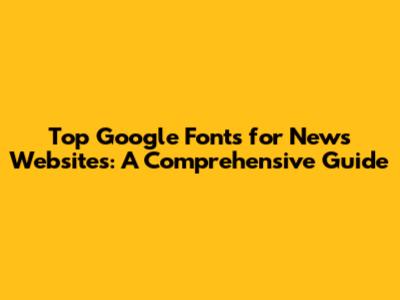
- Readability: Roboto is designed for clear readability, even at small sizes. This is crucial for news websites where the content is the star.
- Versatility: It comes in various weights and styles, giving you flexibility in your design. You can use it for headlines, body text, and everything in between.
- Accessibility: Roboto is highly accessible, meaning it's easy for people with visual impairments to read. This is a must-have for any website that wants to be inclusive.
- Neutral Appearance: Open Sans is neutral enough to complement any design style. It doesn’t steal the show; it just makes your content shine.
- Great for Headlines and Body Text: Open Sans works equally well for headlines and body text, providing a cohesive look across your site.
- Balanced Design: Lato offers a balance between warmth and professionalism. This makes it perfect for a news website that wants to be both informative and approachable.
- Excellent Readability: It's designed for comfort, making it easy to read long articles without straining your eyes.
- Stylish and Modern: Lato looks great and keeps up with modern design trends.
- Classic Look: Merriweather has a classic serif look, which can add a touch of authority to your website.
- Readability: It's designed to be highly readable on screens, so your readers won’t have any issues. It's a great option for body text.
- Versatile: It pairs well with many sans-serif fonts, giving you design flexibility.
- Eye-Catching Headlines: Montserrat is perfect for drawing attention to headlines, keeping your content organized and visually appealing.
- Clean and Modern: It’s a versatile font that can easily be incorporated into any design, giving your site a modern look.
- Excellent Pairing: It pairs well with many body text fonts, providing a cohesive feel for your website.
- Clear Readability: Designed for screen use, it's perfect for delivering clear information in articles.
- Good for Body Text: It works well as body text, keeping your readers' attention without straining their eyes.
- Professional Look: Gives your website a clean, professional appearance. This is ideal for building trust with your audience.
Hey everyone! Choosing the right fonts for your news website is super important, right? It's like picking the perfect outfit – it needs to look good and be easy to read. Since we're all about making things look awesome and function flawlessly, we are going to dive deep into the best Google Fonts for news websites. We'll cover everything from readability to style, so your site not only looks professional but also keeps your readers glued to the screen. Let's get started!
Why Font Choice Matters for News Websites
Alright, let's get real for a sec. Why should you even care about fonts? Well, font choice can make or break your website's success, especially for news websites. Think about it: readers are coming to your site to get informed. If your text is a jumbled mess, or the font is hard on the eyes, they're bouncing faster than you can say 'breaking news.' Seriously, first impressions count. A well-chosen font makes your site look trustworthy and professional, which is something every news site needs.
The Importance of Readability
Readability is the name of the game. You want your content to be easily scannable and digestible. A font that’s too fancy or too thin might look cool, but it's a nightmare for long-form articles. News websites are all about long articles, and they're meant to be read, so you need a font that keeps your readers engaged without straining their eyes. Look for fonts with clear letterforms, generous spacing, and a good x-height (the height of the lowercase 'x'). These features contribute to a comfortable reading experience. When a font is easy to read, people stick around longer, read more articles, and are more likely to come back. That's the ultimate goal, isn't it?
Building Trust and Credibility
Believe it or not, fonts can also build trust and credibility. Think of it like this: a website with a well-designed, readable font looks more professional and trustworthy. It shows you care about your audience and their experience. A website using a font that looks dated or unprofessional can send the wrong message. It could make your site look less credible, potentially damaging your brand’s reputation. A clean, modern font signals that your website is up-to-date and reliable. This builds confidence with your readers and encourages them to take your content seriously. It's subtle, but it's effective. Choosing the right font is a small but powerful way to enhance your brand’s perception and build a loyal audience. Remember, in the world of online news, every little detail matters.